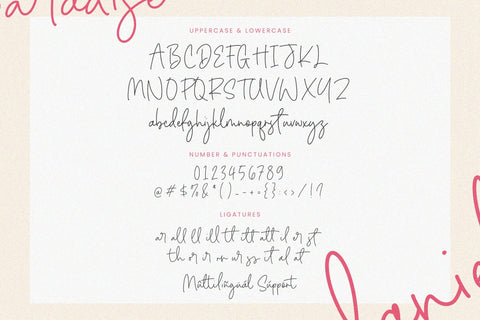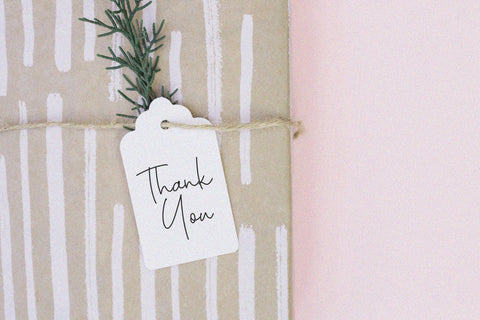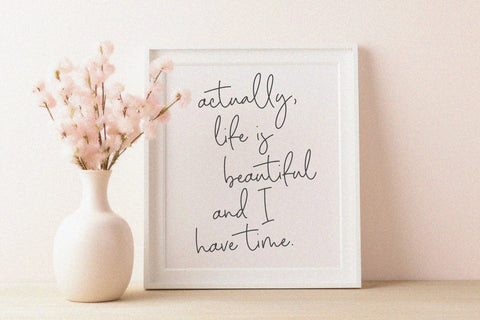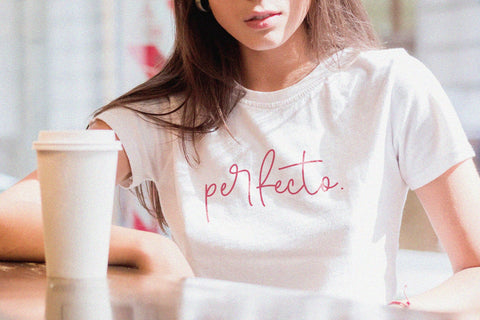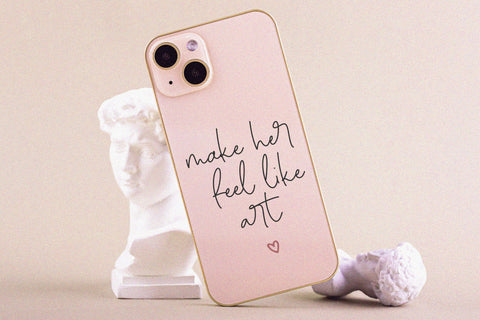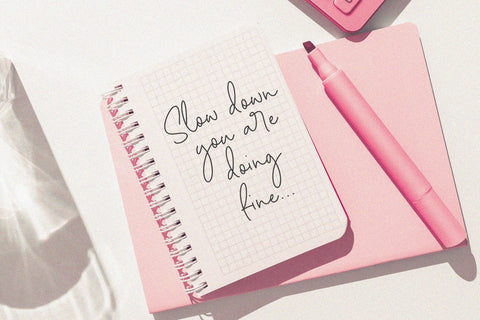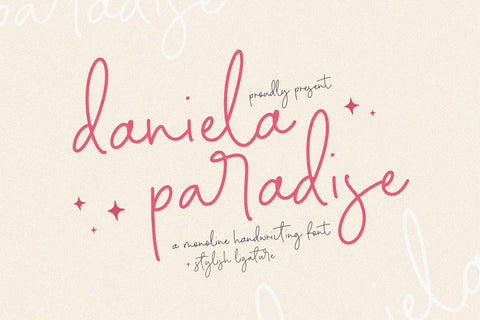
Daniela Paradise - Monoline Handwriting Font
Daniela Paradise is a Monoline Handwriting Font
This font captures simplicity and elegance in its design. With consistent line thickness and smooth curves, this font exudes a refined and sophisticated aesthetic, making it ideal for a variety of design projects. The monoline style gives Daniela Paradise a clean and contemporary look, while the inclusion of stylish ligatures adds a touch of sophistication and charm to your text. Whether you're aiming for a minimalist and modern design or a timeless and classic feel, the Daniela Paradise font offers versatility and understated beauty. Embrace the elegant simplicity of the Daniela Paradise monoline handwriting font and enhance your designs with its graceful and refined touch.
- Stylish Ligature
Daniela Paradise Font also supports multilingualism